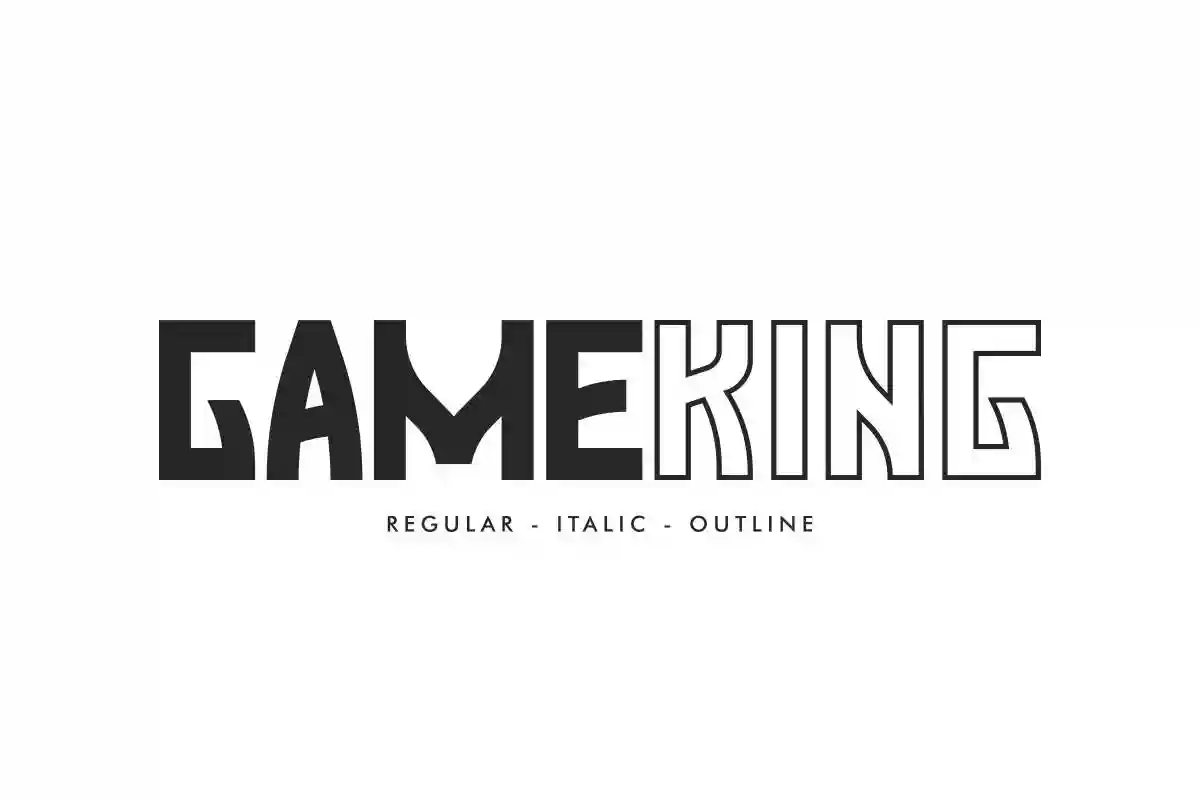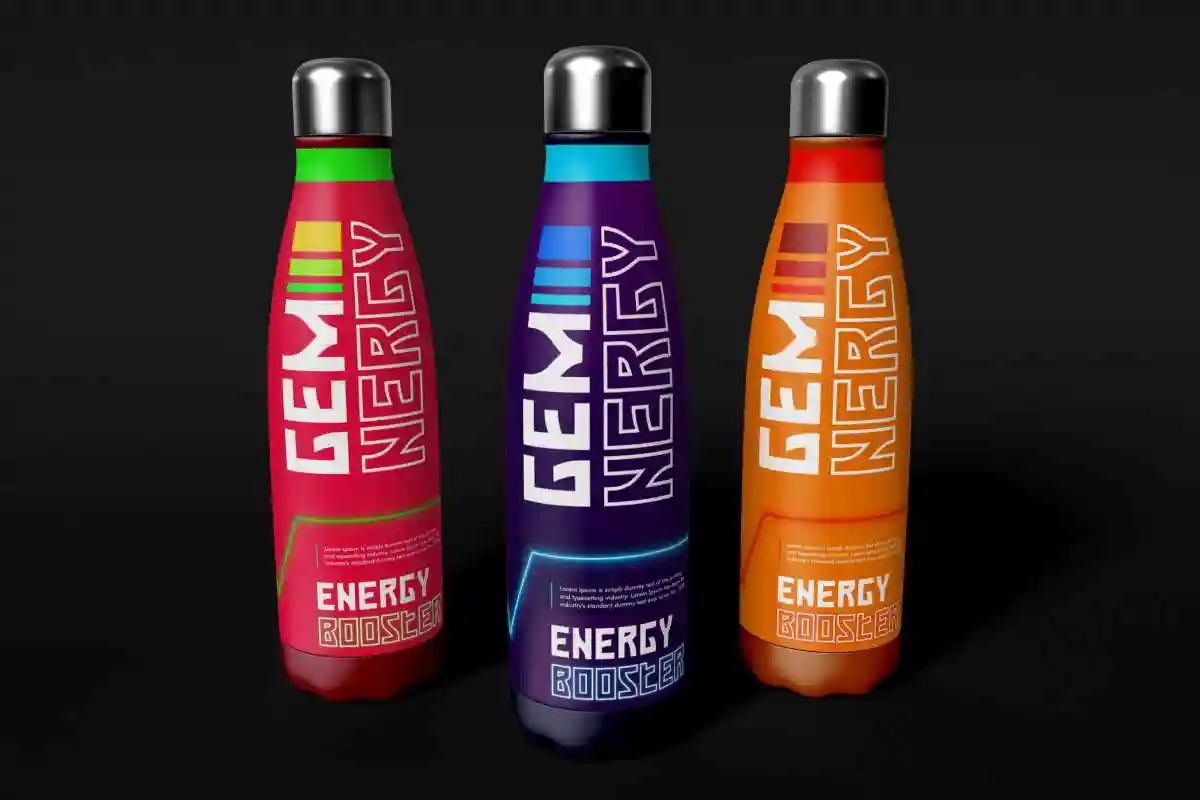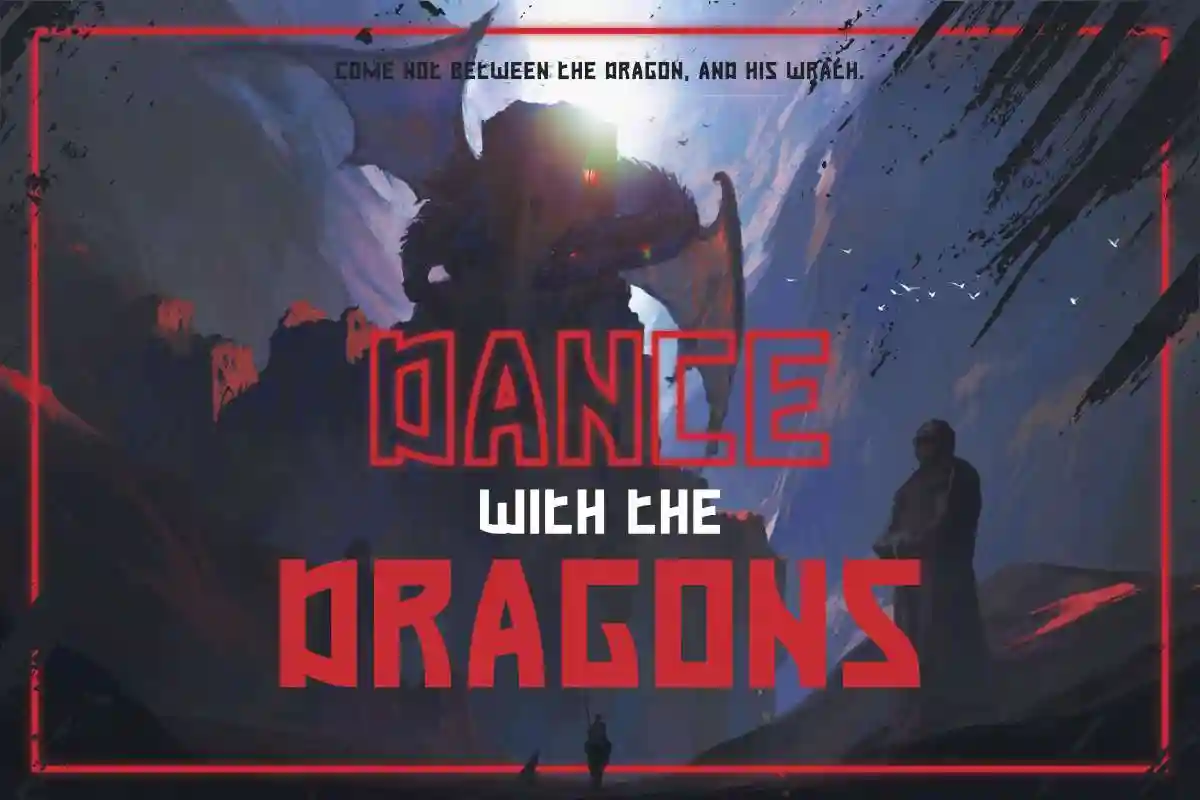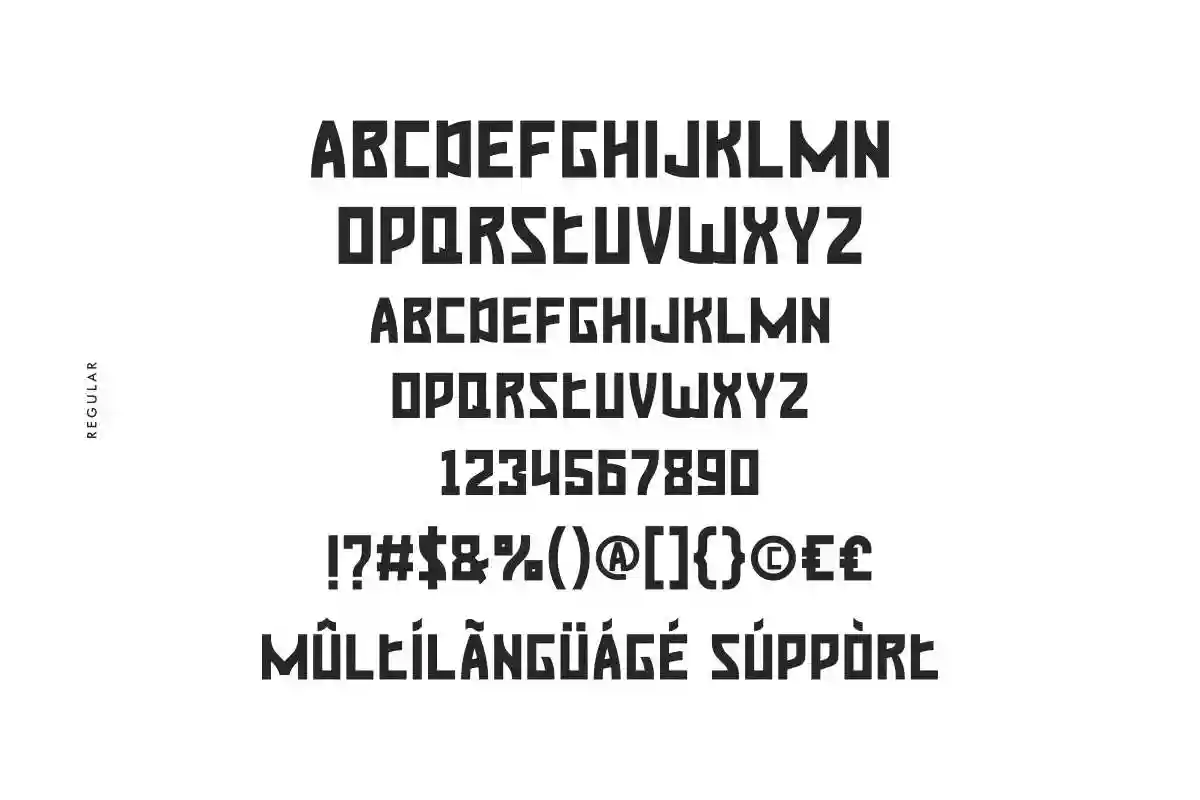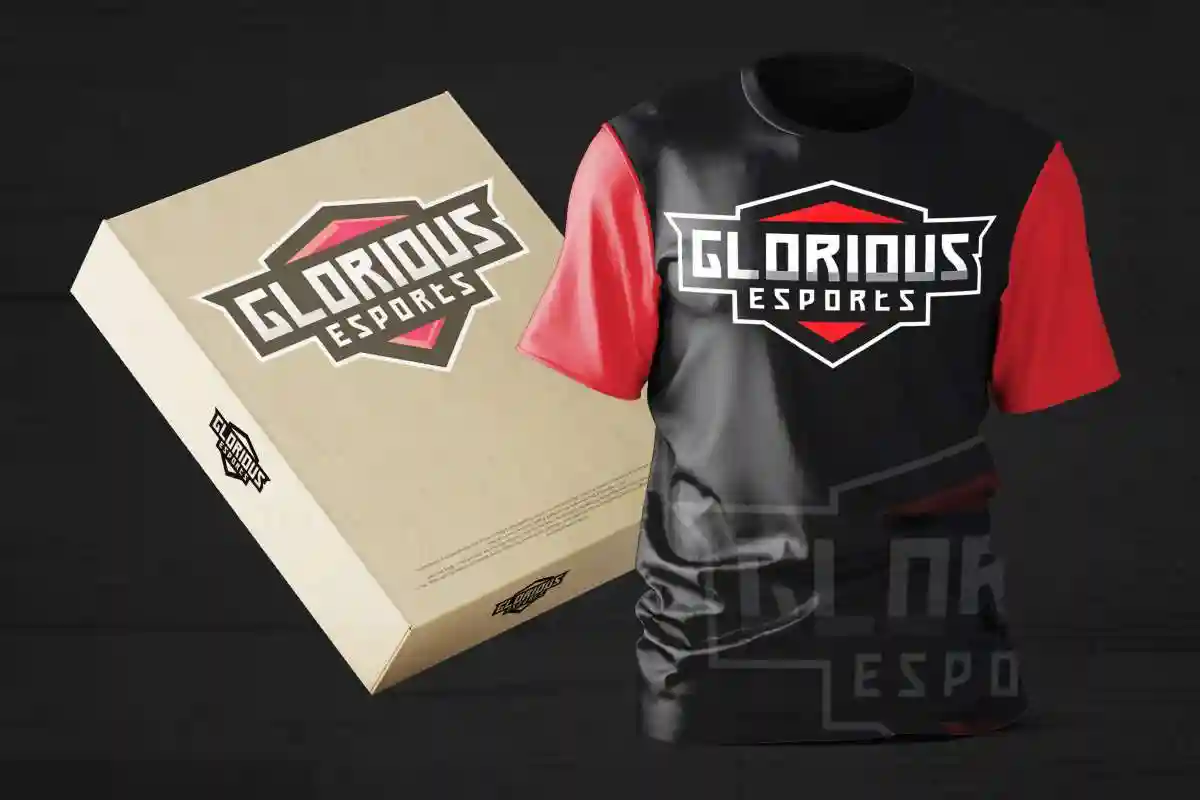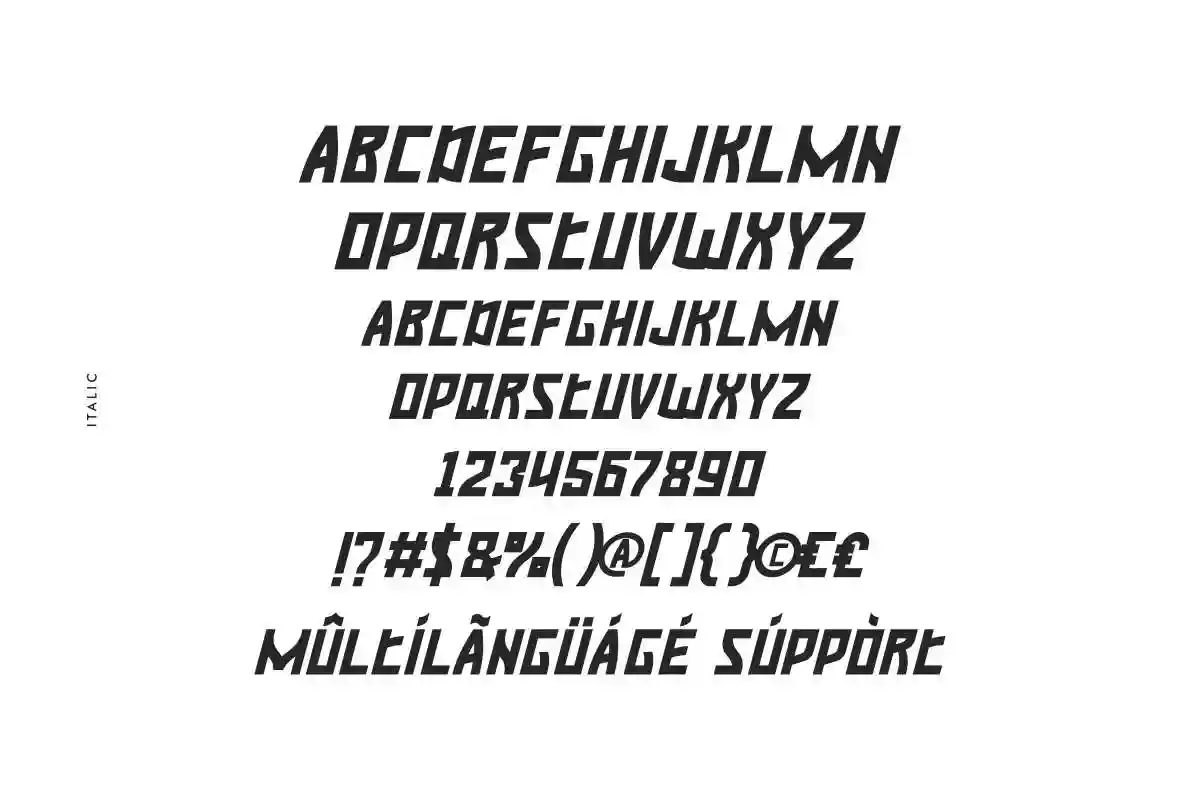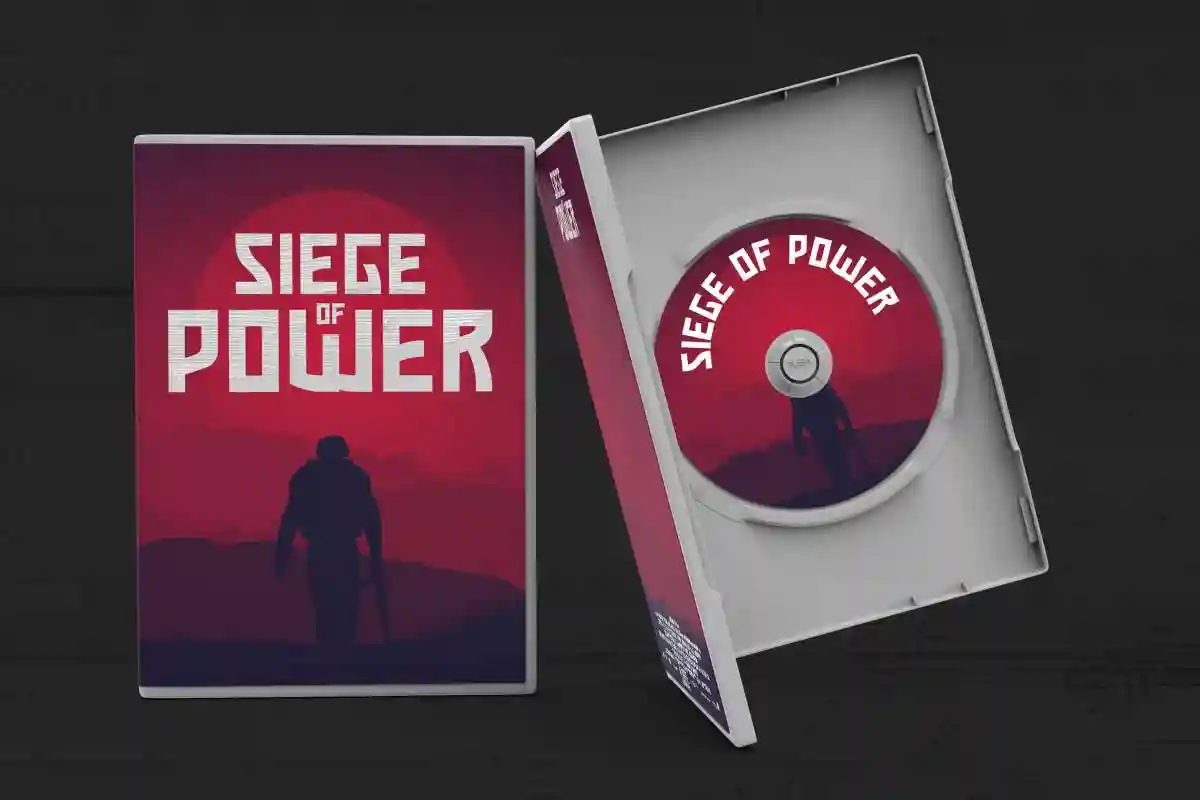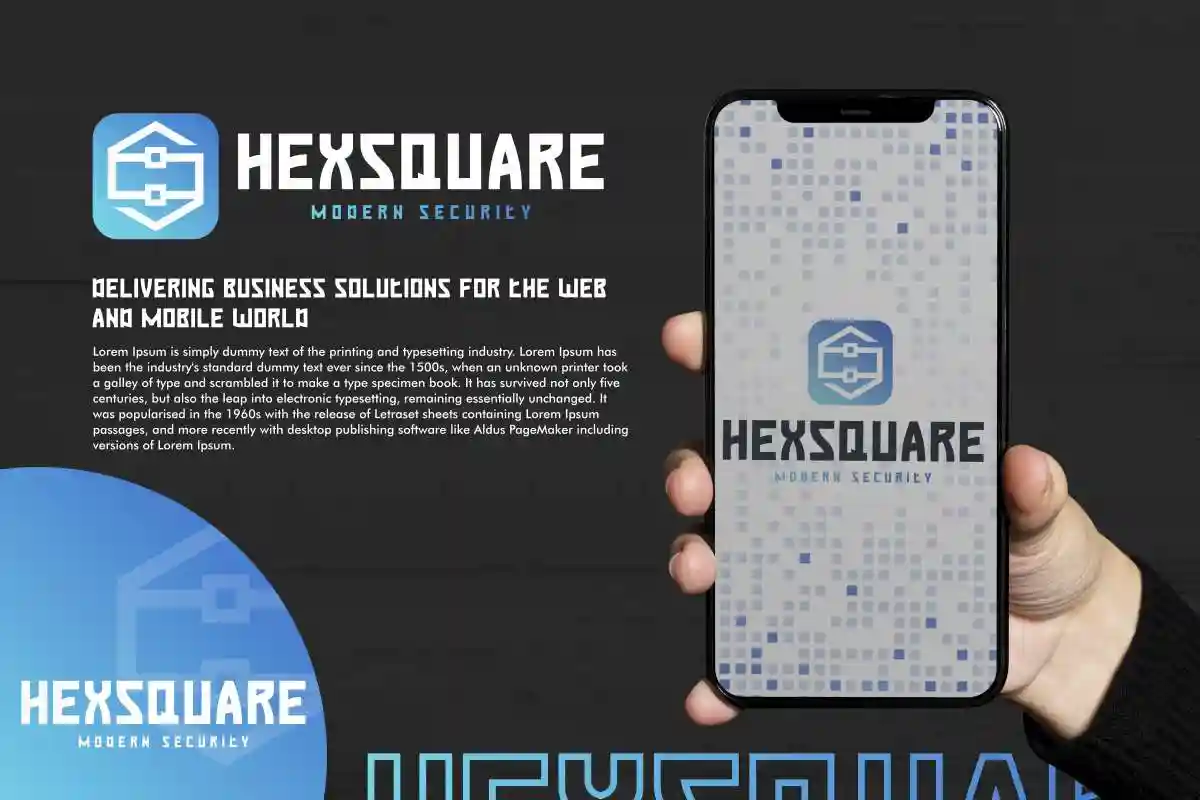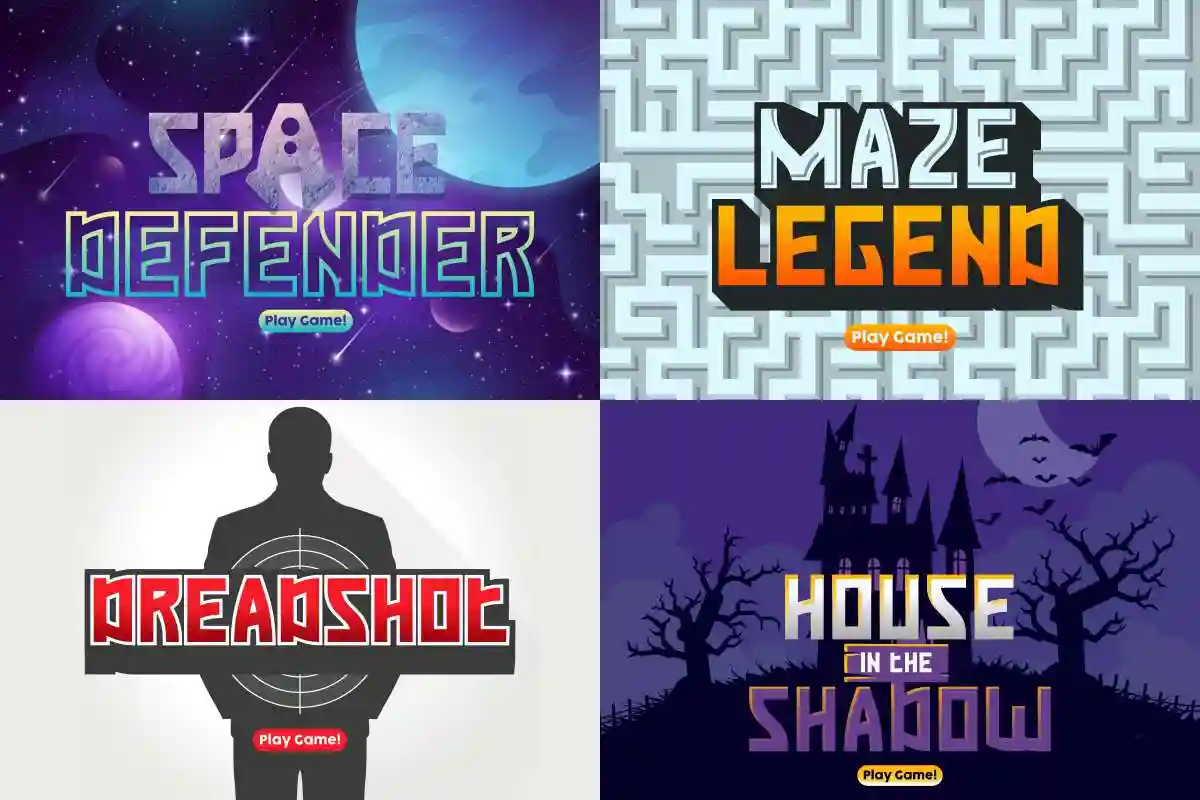
Gameking Font is a display font family inspired by game world , made by NihStudio. This font will be great for games, clothing, poster, products packaging etc.
Gameking Font is a display sans serif font family designs with game and sporty feel made by NihStudio. Please try the font by typing your own text below. Note that the test font below is a demo file, so some specimens/characters will not show up.
Gameking Font comes with a clean and sport style look to the letters. After purchase, On the zip package you will get :
Gameking Font will be great for any projects including : flyer, logo branding, products packaging, signage, stationery, etc. This font comes with three different font styles: Regular, Italic and Outline fresh and exclusive which makes it stand out.